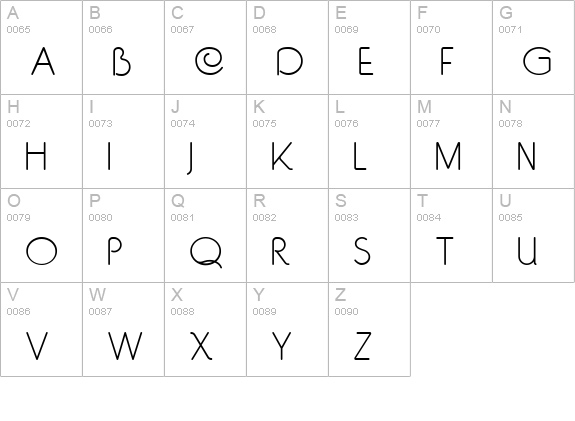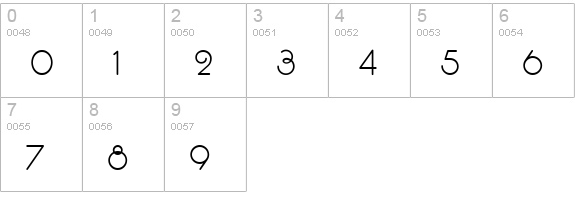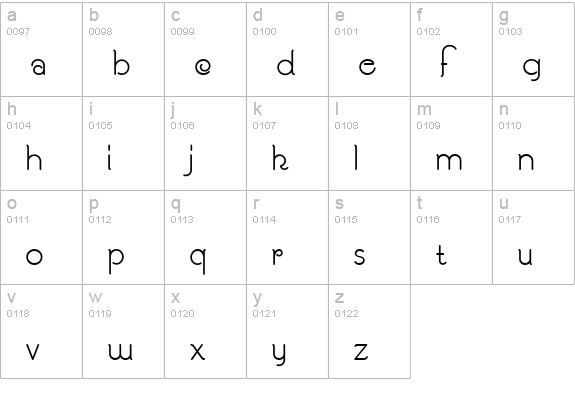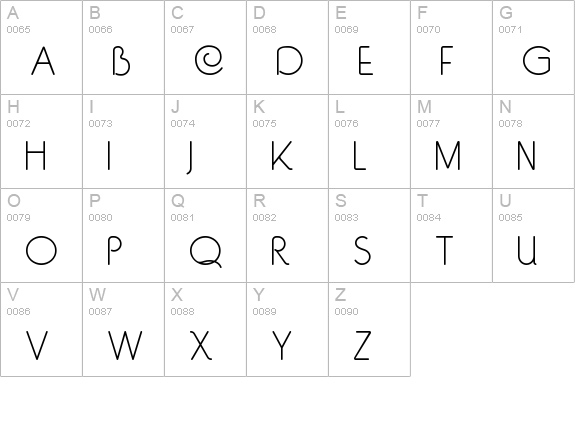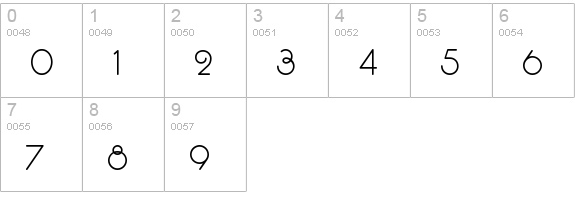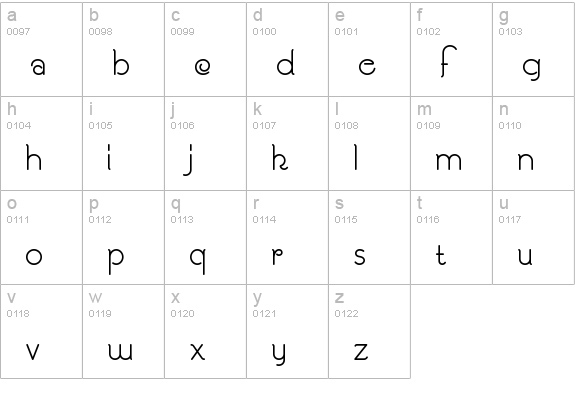
Souci Sans NF is a modern and versatile sans-serif font that exudes elegance and sophistication. With its clean lines and sleek design, this font is perfect for a wide range of design projects, from branding to editorial design. The balanced proportions and subtle details of Souci Sans NF make it a timeless choice for any type of design. One of the best things about Souci Sans NF is that it is available for free download at FontsMarket.com. This means that you can easily access this high-quality font without any additional cost, making it a great option for both personal and commercial use. Whether you're designing a website, creating a logo, or working on a print project, Souci Sans NF is sure to elevate your design with its modern and stylish aesthetic. Overall, Souci Sans NF is a must-have font for any designer looking to add a touch of sophistication to their work. Its versatility, elegance, and availability for free download make it a valuable addition to any font library.